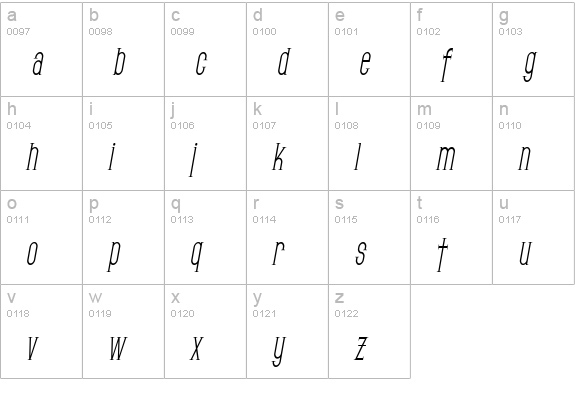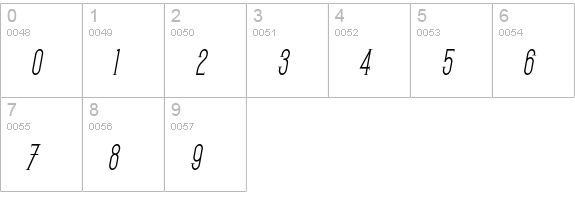
SF Gothican Condensed Oblique Font Details
SF Gothican Condensed Oblique is a distinctive, condensed-width, italic variant in the SF typeface family \xE2\x80\x94 well suited to design and typography projects.
SF Gothican Condensed Oblique is a unique and captivating font that effortlessly combines the elements of gothic style with a modern twist. With its sleek and condensed design, this font exudes an air of sophistication and elegance. The oblique slant adds an extra touch of drama and intrigue, making it perfect for projects that require a touch of edginess. This font is not only visually striking but also highly versatile, making it a perfect choice for a wide range of design projects. Whether you're creating a logo, designing a poster, or crafting a website, SF Gothican Condensed Oblique will surely make a bold statement. What makes this font even more appealing is that it is freely available to download at FontsMarket.com. This means that you can easily access and use this font without any cost or restrictions. Whether you're a professional designer or a casual hobbyist, having access to high-quality fonts like SF Gothican Condensed Oblique can greatly enhance your creative endeavors. Don't miss out on the opportunity to add this visually stunning font to your collection. Download SF Gothican Condensed Oblique today and let your designs come to life with its captivating and bold presence.